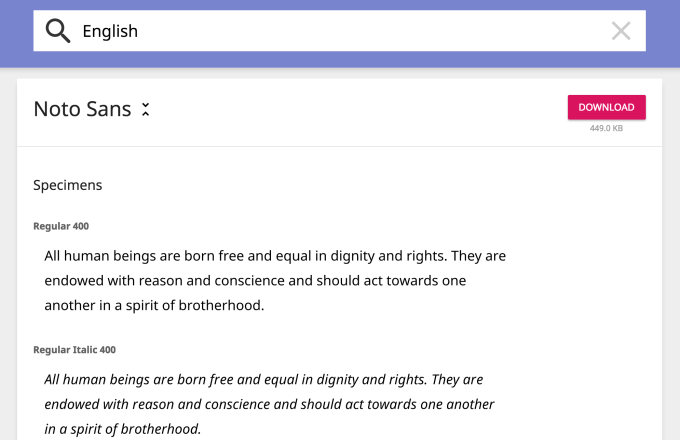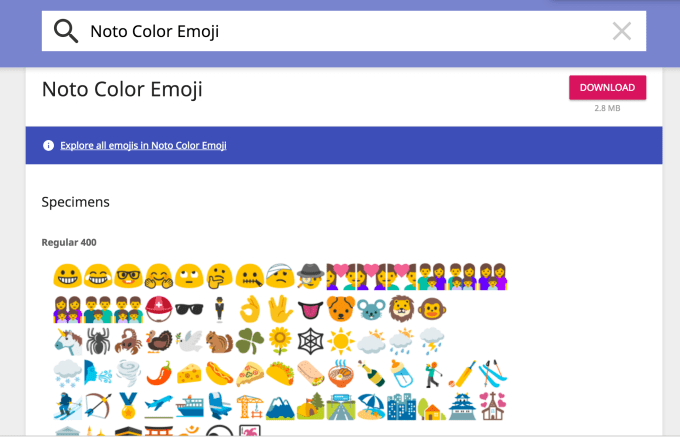
Google’s bid to connect the world with its services is a multi-faceted effort that spans mobile services, search, maps, connectivity, devices and more. But today, it’s the company’s efforts in the world of fonts — perhaps one of the less celebrated, but still central, parts of that ambition — that is having its day in the spotlight.
Google, in partnership with font specialist Monotype, has taken the wraps off the Noto Project, a five-year collaboration between the two to create a typeface that applies to any language that now offers a single font style covering more than 800 languages and 100 writing scripts. The mammoth effort is now being shipped. The fonts are available under an open source OFL (Open Font License), both to use and to be modified with more design tweaks.
The aim here is a big one: regardless of which language you create or consume digital content in, there should be no “unknown” characters that come across as white boxes, which are described as “tofu.” (Noto is a portmanteau of “No to(fu)”.) And all of it, Google and Monotype believe, would look better if it were visually unified.
To be sure, there was a degree of skepticism when Google and Monotype embarked on this project, in my opinion well summed up in the words of Pakistani-American writer Ali Eteraz (quoted by NPR in 2014, when the project was already well underway):
“I tend to go back and forth,” he said. “Is it sort of a benign — possibly even helpful — universalism that Google is bringing to the table? Or is it something like technological imperialism?”
Fonts can be an extremely fun and liberating thing to play around with if you have a wide selection at your disposal, and the right one can make just the right statement at times.
In that context, I’d say that what Noto has produced is more functional than inspiring. The resulting fonts are as unoffensive and neutral as you might imagine an everyfont might be (the basic English sans-serif font is down below), and with styles including different weights, serif and sans serif versions, numbers, emoji (which are basically Google’s emoji), symbols and music notations.
But as far as functional goes, it’s a notable and worthy effort of how to create a truly global font language, and come out with something clean at the end of it.
“Google Noto is a daunting project in size and scope, and I’m proud of how we’ve worked hard over the past five years to develop a really good product that solves a problem no one else has taken on before,” said Bob Jung, director of internationalization, Google, in a statement.
“Our goal for Noto has been to create fonts for our devices, but we’re also very interested in keeping information alive. When it comes to some of these lesser used languages, or even the purely academic or dead languages, we think it’s really important to preserve them. Without the digital capability of Noto, it’s much more difficult to preserve that cultural resource.”
What’s interesting to me is the division of labor between Google and Monotype when embarking on this project.
Monotype was in charge of a lot of the actual design work. This included, it said, “researching and digitally designing the characters, writing systems and alphabets, and applying the rules and traditions for those individual languages to the fonts and managing the project, including organizing outside designers and linguists around the world who specialize in specific scripts.”
Google, for all its engineering and other prowess, appears to have occupied the client role, setting out the parameters of what it is that Monotype needed to do, and paying for it: It “defined the requirements and scope of the project, shared significant input into design direction for major languages, contributed design review and technical testing resources and expertise for a broad range of languages, and provided the funding that made this project possible.”
The two said also that “hundreds of researchers, designers, linguists, cultural experts and project managers around the world have been involved with Google Noto” as well.
For Google, this fits with the fact that the company is launching services and wants to grow its footprint wherever Internet connectivity can go. It also dovetails nicely with the company’s other efforts around languages, specifically providing translation frameworks for a wide range of languages that are both active and in decline (an effort that broke the 100-language barrier earlier this year).